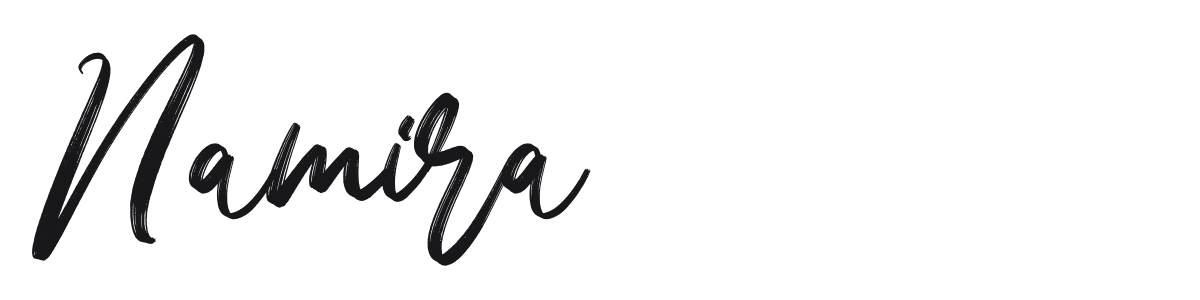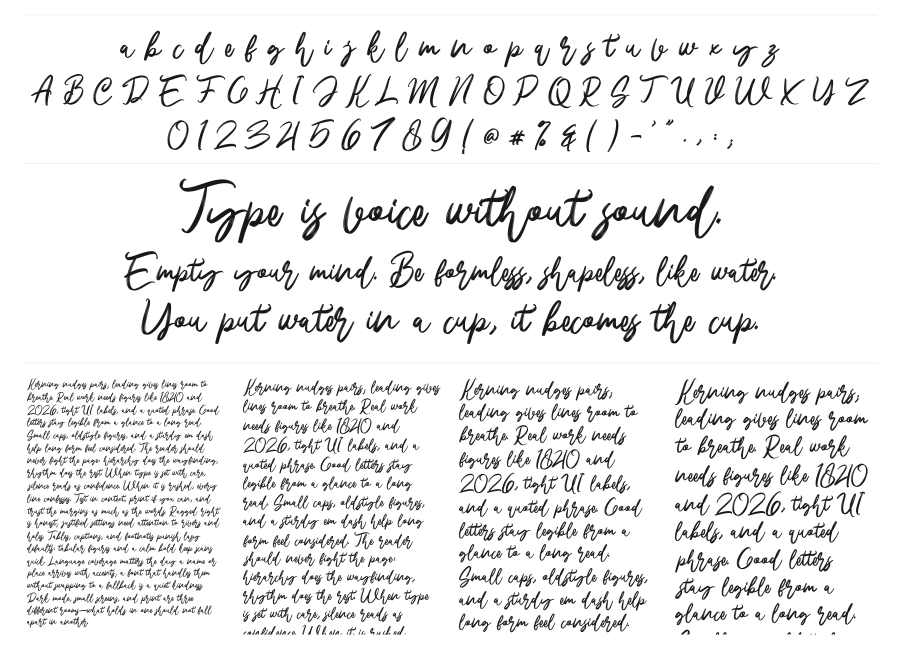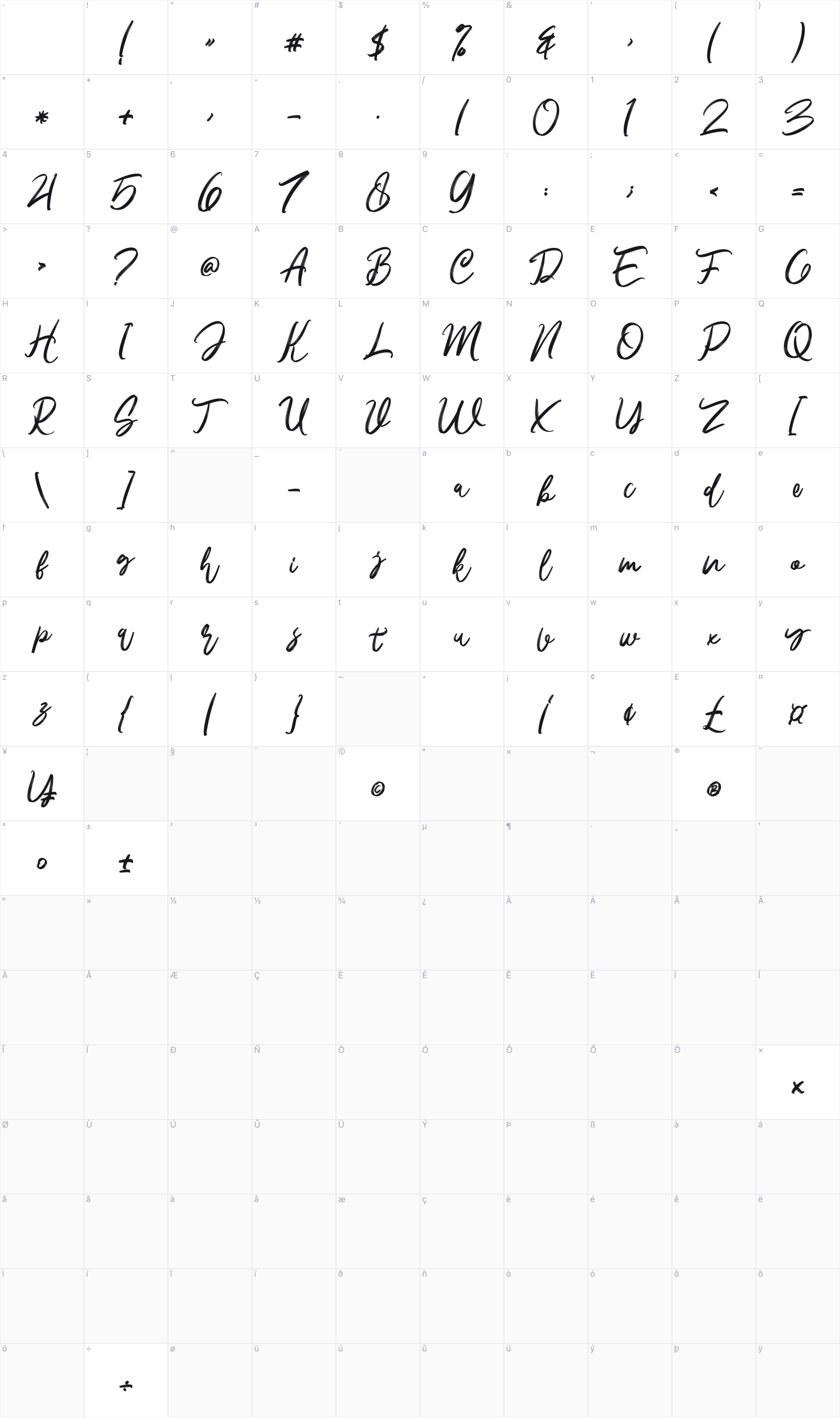
Namira
Namira is a casual brush script from Omotu Studio with a loose, handpainted quality. Slightly rough stroke edges and a gently bouncing baseline give it an authentic, ink-on-paper feel that polished digital scripts often lack. Works well for branding, packaging, and editorial headlines where handcrafted energy is the point.